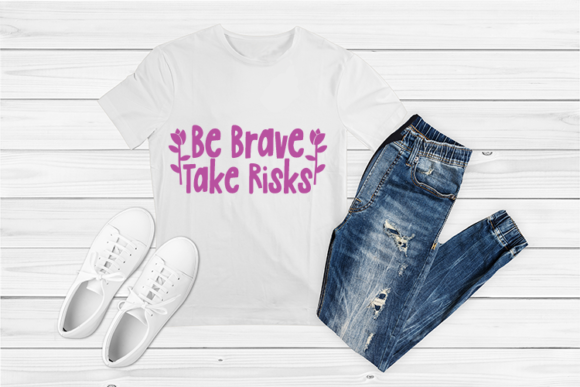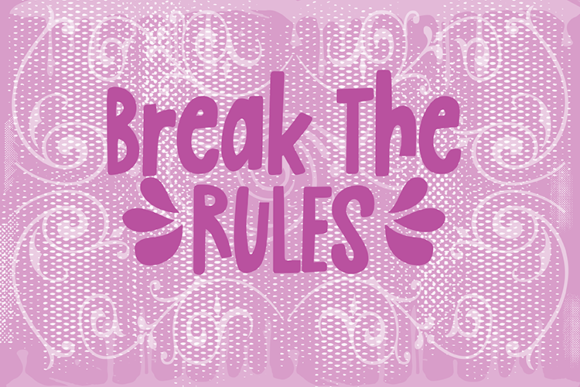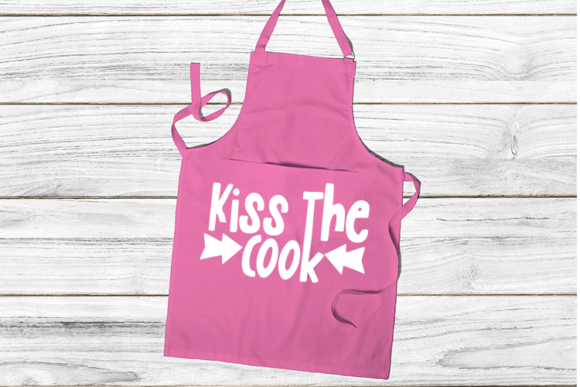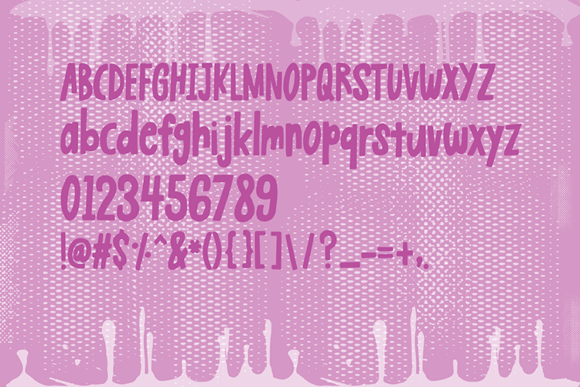
Introducing Everlong Font: The Perfect Blend of Cuteness and Strength
Are you tired of using the same old fonts for your designs? Look no further than Everlong Font, a cute and strong display font that’s perfect for making a statement. This fantastic handcrafted typeface is designed to make your headlines and blocks of text stand out, whether you’re working on a web project, print material, or moving images.
What Makes Everlong Font Special?
Everlong Font is a unique and versatile typeface that’s suitable for a wide range of design applications. Its handcrafted nature gives it a personal touch that’s hard to find in digital fonts. The font’s design is characterized by its bold and playful style, making it perfect for headlines of all sizes. Additionally, its clear and legible structure ensures that it can be used for blocks of text with both maximum and minimum variations.
Key Features of Everlong Font
- Cute and Strong Design: Everlong Font boasts a unique blend of cuteness and strength, making it perfect for designs that require a bold statement.
- Handcrafted Typeface: The font’s handcrafted nature gives it a personal touch that’s hard to find in digital fonts.
- Versatile: Everlong Font is suitable for a wide range of design applications, including web, print, and moving images.
- Legible: The font’s clear and legible structure ensures that it can be used for blocks of text with both maximum and minimum variations.
Use Cases for Everlong Font
Everlong Font is a versatile typeface that can be used in a variety of design applications. Here are some use cases where Everlong Font excels:
- Headlines and Titles: Everlong Font is perfect for creating bold and eye-catching headlines and titles.
- Web Design: The font’s legibility and versatility make it suitable for web design, including website headers, paragraphs, and UI elements.
- Print Design: Everlong Font can be used for print materials such as posters, flyers, brochures, and business cards.
- Moving Images: The font’s bold and playful style makes it perfect for use in moving images, including video titles, subtitles, and animations.
Tips for Using Everlong Font
To get the most out of Everlong Font, here are some tips to keep in mind:
- Experiment with Font Sizes: Everlong Font is designed to be versatile, so don’t be afraid to experiment with different font sizes to find the perfect fit for your design.
- Pair with Other Fonts: Everlong Font can be paired with other fonts to create a unique and visually appealing design.
- Use for Emphasis: The font’s bold and playful style makes it perfect for use in emphasis, such as highlighting important information or creating a call-to-action.
Everlong Font is a unique and versatile typeface that’s perfect for designers and crafters looking to add a personal touch to their designs. Its handcrafted nature, bold and playful style, and legibility make it suitable for a wide range of design applications. Whether you’re working on a web project, print material, or moving images, Everlong Font is sure to make a statement.